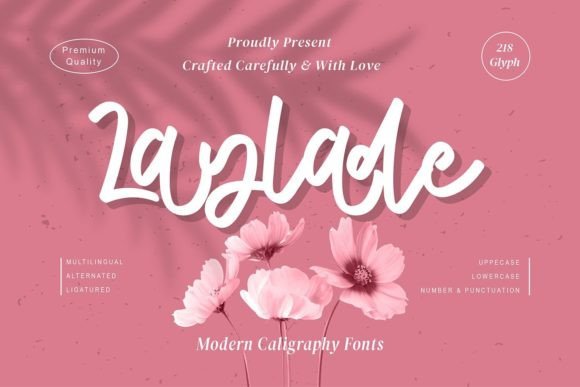
Embark on a typographic journey with Laylade Script, a font that exudes elegance, creativity, and charm. This modern script font, meticulously crafted by Naharstdio, is a testament to the power of beautiful lettering.
With its intricate curves, flowing strokes, and graceful serifs, Laylade Script captivates the eye and adds a touch of sophistication to any design. Its well-balanced characters dance harmoniously together, creating a visually appealing and cohesive look that elevates your projects to new heights.
Whether you're a seasoned designer or just starting out, Laylade Script is the perfect font to add to your creative arsenal. Its versatility knows no bounds, making it suitable for a wide range of projects, from wedding invitations and logos to branding and social media graphics.
Imagine your wedding invitations adorned with the delicate strokes of Laylade Script, conveying the joy and elegance of your special day. Picture your logo standing out from the crowd with its unique and eye-catching style, leaving a lasting impression on your customers. Let Laylade Script be the creative spark that ignites your imagination and transforms your designs into masterpieces.
Don't settle for ordinary fonts that blend into the background. Choose Laylade Script, a font that commands attention and makes a statement. Its timeless beauty will ensure that your designs remain relevant and captivating for years to come.
Immerse yourself in the world of Laylade Script and discover the endless possibilities it offers. Let your creativity soar as you explore the myriad ways to incorporate this stunning font into your designs. The only limit is your imagination.